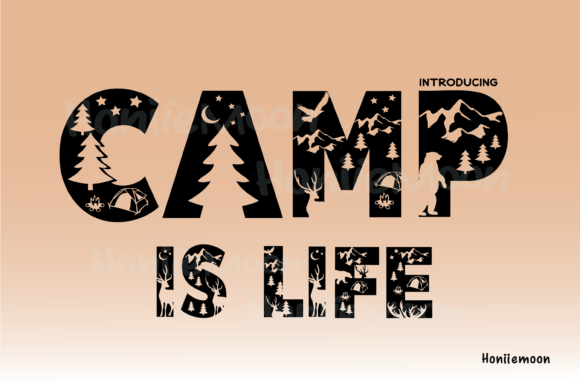
Are you looking for the perfect font to make your baby boy's designs stand out? Look no further than Camp is Life Font, created by the talented Honiiemoon.
This decorative font is more than just a typeface - it's a statement. Its fun and original design is perfect for adding a touch of playfulness to any project. Whether you're creating baby shower invitations, birth announcements, or even nursery decor, Camp is Life Font is sure to make an impact.
What sets Camp is Life Font apart from other decorative fonts is its authenticity. The hand-drawn design gives it a unique and personal touch that can't be replicated by computer-generated fonts. Plus, its versatility means it can be used for a wide variety of projects beyond just baby-related designs.